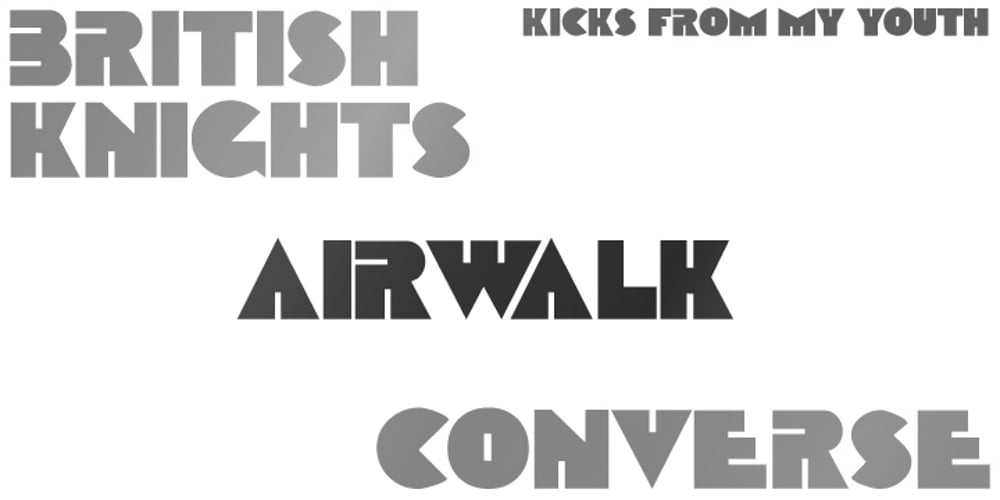
Surfside Font Family was designed by published by Victory Type. Surfside contains 1 styles and family package options. These are the letters I doodled in the margins of my high school notebooks. As it turns out, a man named Milt Glaser doodled them first. He doodled a lot of other amazing things too. Mr. Glaser called his blocky alphabet Baby Teeth. I think the type looks better when it says Surfside, so that’s what I called my incarnation. This version has been digitized and expanded, and is available for Mac and PC. These letters remind me of the 80s and the 90s, of Gotcha shorts, Ocean Pacific shirts and fluorescent windbreakers. Surfside matched my Airwalks. They’re big and bold. Clunky and funky. Spices up words. Makes ’em look great! Surfside is cool and available for a low low price… scoop it up today!